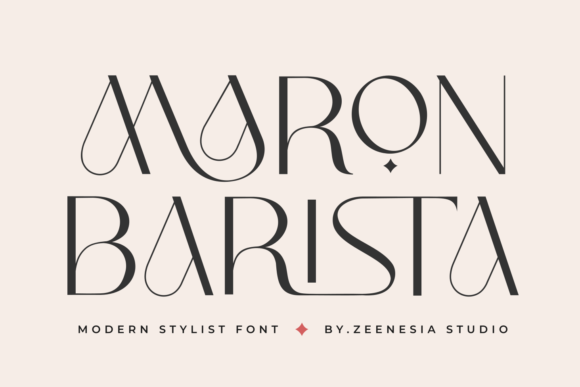
Journey into the realm of captivating typography with Maron Barista, a sans serif font that exudes romance and loveliness. Its graceful curves and elegant lines will dance across your designs, adding a touch of charm and sophistication to every project.
Picture this: a wedding invitation adorned with Maron Barista's graceful strokes, inviting guests to a celebration filled with love and joy. Or imagine a poster for a fashion show, where Maron Barista's stylish characters strut down the runway, commanding attention with their sleek and modern allure.
Maron Barista's versatility extends far beyond the realm of fashion. Its smooth and flowing lines lend themselves effortlessly to greeting cards, where heartfelt messages take on a new level of charm. Product branding and logotypes also benefit from Maron Barista's timeless beauty, leaving a lasting impression on customers.
With Maron Barista, you'll have access to an array of glyphs and ligatures, allowing you to explore endless creative possibilities. Unleash your imagination and watch as your designs flourish with elegance, style, and a hint of romantic flair.
So, whether you're a creative professional seeking to elevate your designs or a passionate individual looking to add a touch of charm to your personal projects, Maron Barista is your perfect companion. Let its enchanting characters guide you towards captivating creations that leave a lasting impression.